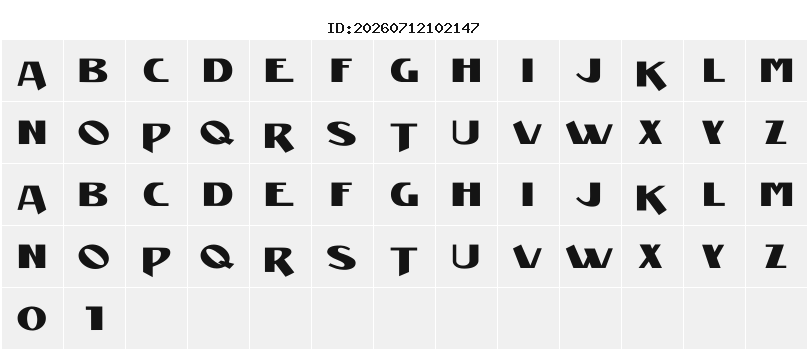
• Font Name: Manifest Niski
About Manifest Niski.ttf
Manifest Niski.ttf is a modern, elegant sans-serif font designed for ultimate readability and visual harmony. Perfect for branding, headlines, web design, and print materials.